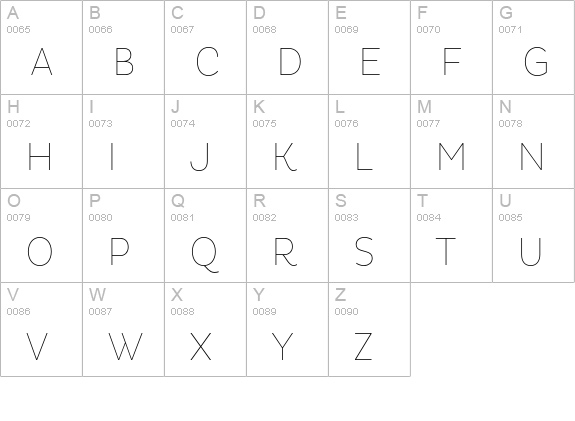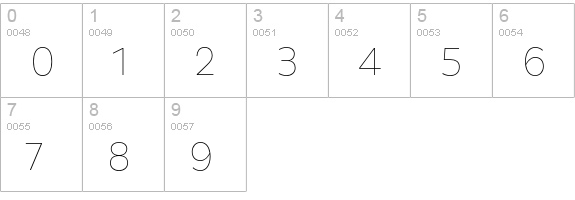
Pluto Cond Thin is a delicate, low-contrast, condensed-width variant in the Pluto typeface family \xE2\x80\x94 well suited to fashion editorial, minimal branding, and high-contrast display.
Pluto Cond Thin font is a sleek and modern typeface that exudes elegance and sophistication. With its thin and condensed design, this font is perfect for adding a touch of refinement to any project. Whether you're designing a logo, creating a poster, or crafting a website, Pluto Cond Thin font will elevate your work to a whole new level. The best part? Pluto Cond Thin font is completely free to download at FontsMarket.com. This means you can access this stunning font without having to spend a dime. Don't miss out on the opportunity to enhance your designs with this exquisite typeface. Download Pluto Cond Thin font today and take your projects to the next level.